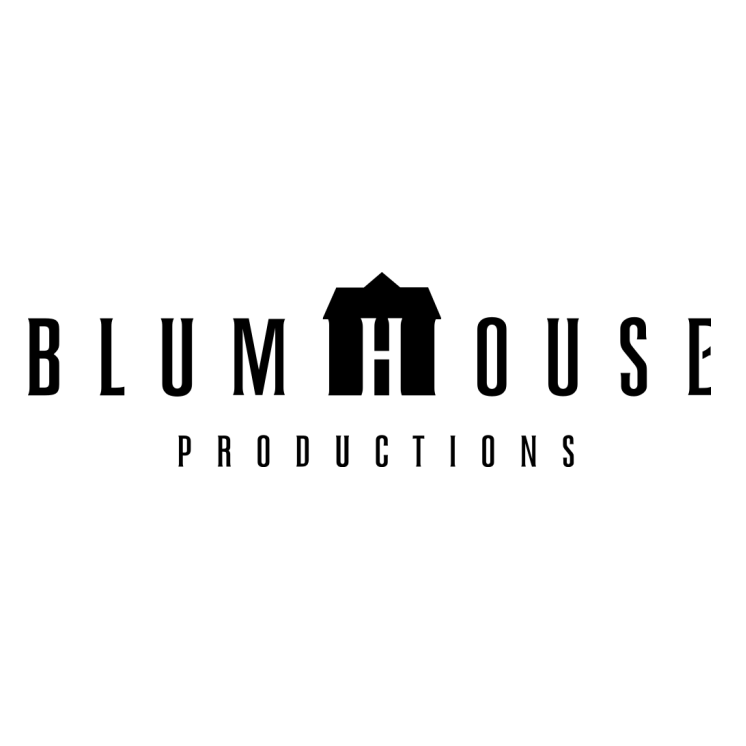
Blumhouse Productions Font
EntertainmentBlumhouse Productions is an American independent film and television production company, known for producing low-budget horror and suspense movies such as "Get Out," "Paranormal Activity," and "The Purge."
The logo of the Blumhouse Production company features a font that closely resembles Coliseum Pro, a five-weight compressed spur serif font created by Julie Hopwood and Pat Hickson in 1992 and later revised by Steve Jackaman to include additional weights.